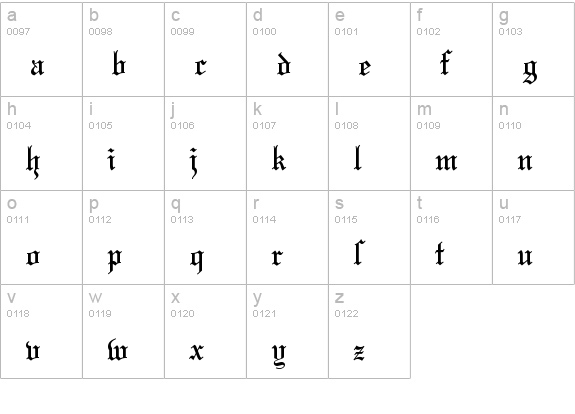
MariageD Font Details
Introducing MariageD, a breathtakingly elegant font that captures the essence of romance and sophistication. This exquisite typeface is perfect for adding a touch of refined beauty to any project, whether it be invitations, wedding stationery, or branding materials. With its delicate strokes and graceful curves, MariageD exudes a timeless and classic charm that is sure to captivate the hearts of your audience. Its ornate details and intricate design elements make it a truly beautiful choice for those seeking to make a statement with their typography. But what makes MariageD truly special is that it is not only a stunning font, but it is also free. Yes, you read that right - this extraordinary typeface is freely available to download at FontsMarket.com. Now, you can effortlessly elevate your designs without breaking the bank. Embrace the allure and elegance of MariageD as it adds a touch of magic to your creative endeavors. Whether you're designing wedding invitations, crafting romantic quotes, or bringing a luxurious feel to your brand, MariageD is the perfect companion. Download MariageD now from FontsMarket.com and unlock the beauty and versatility of this remarkable font. Get ready to enchant your audience and create designs that will leave a lasting impression.